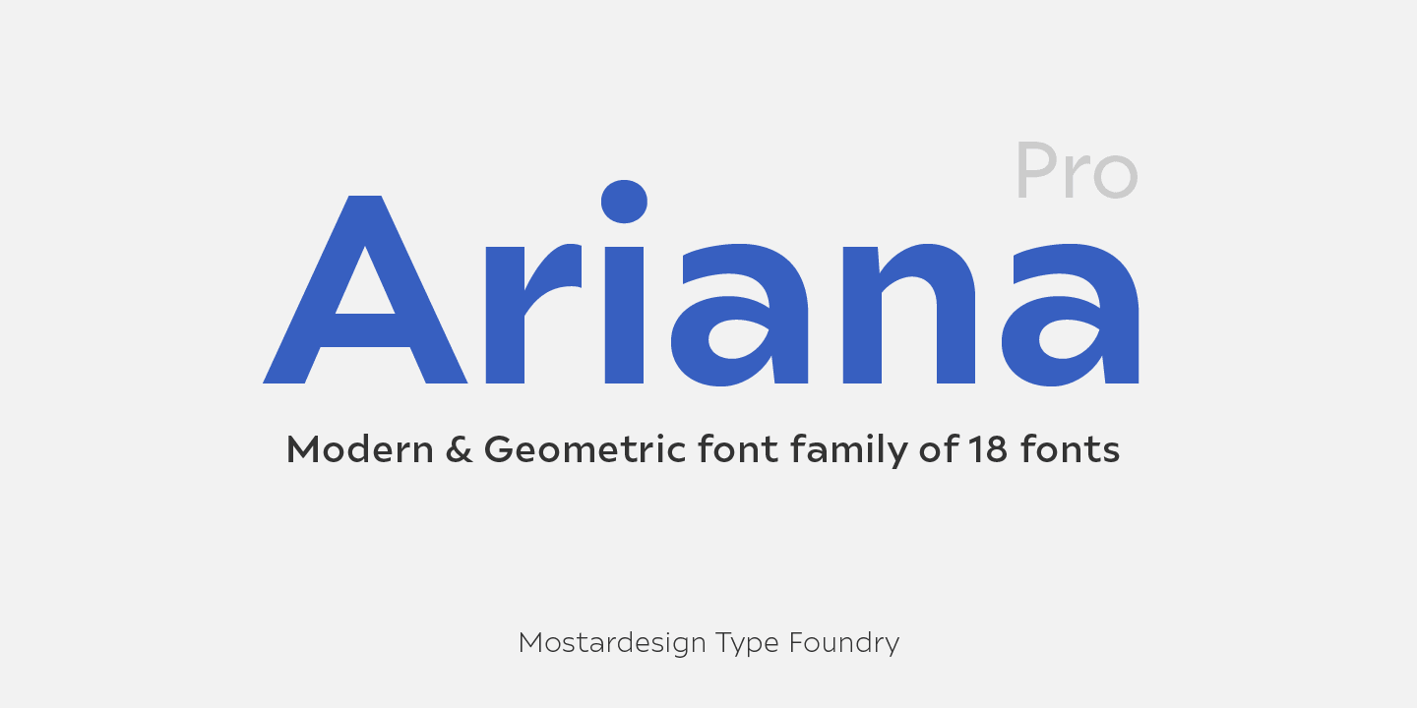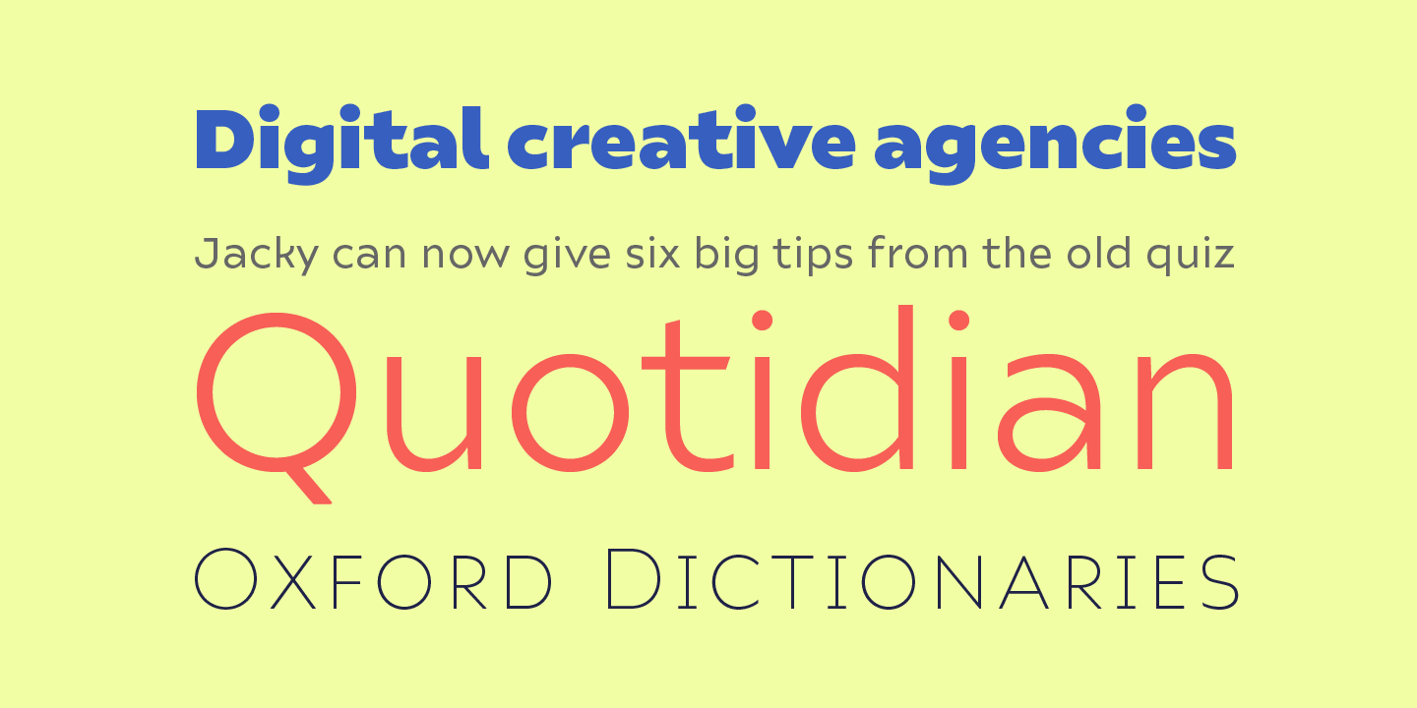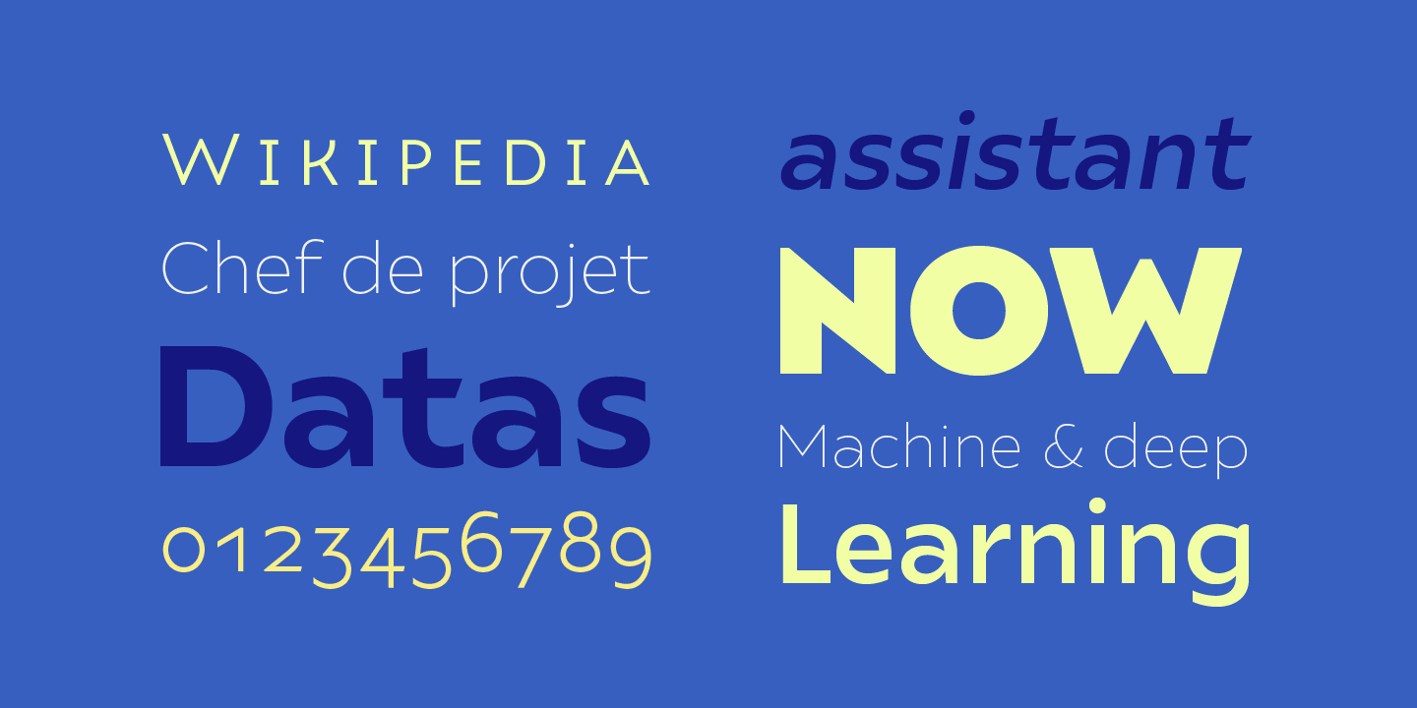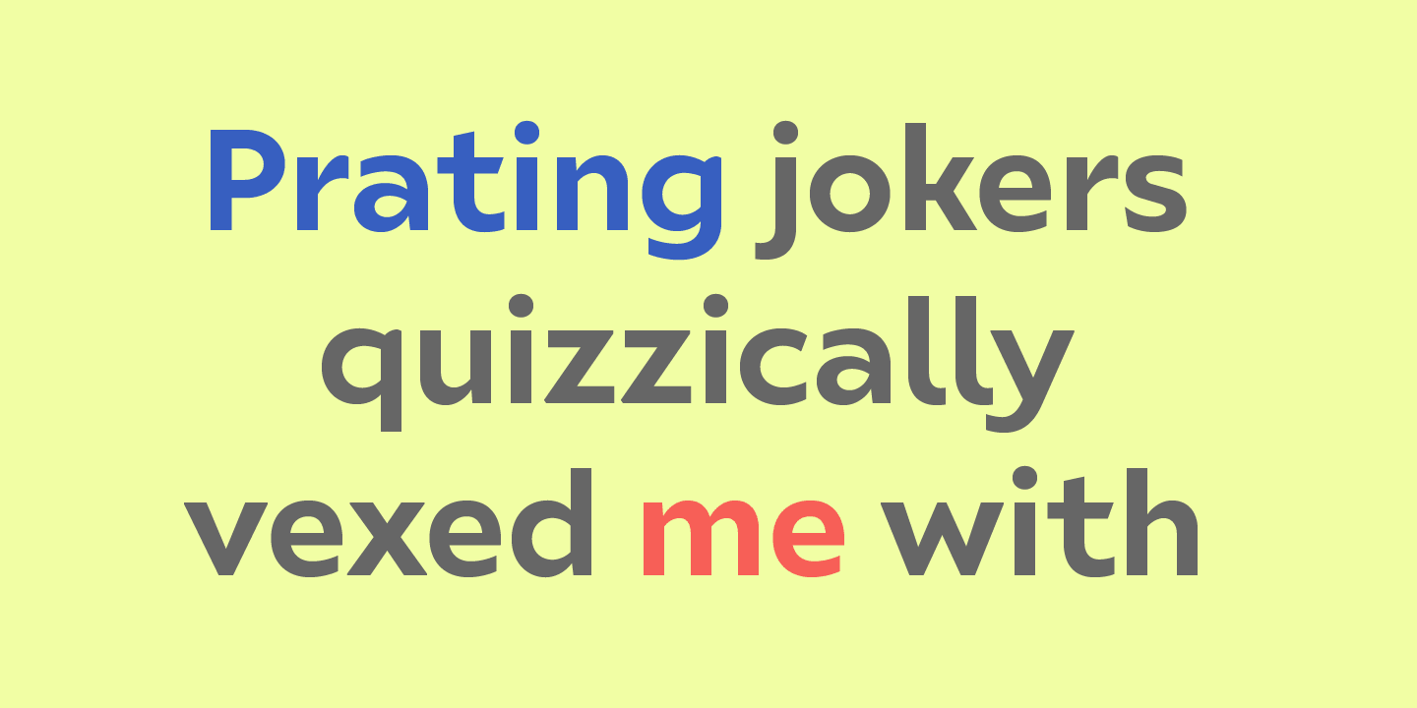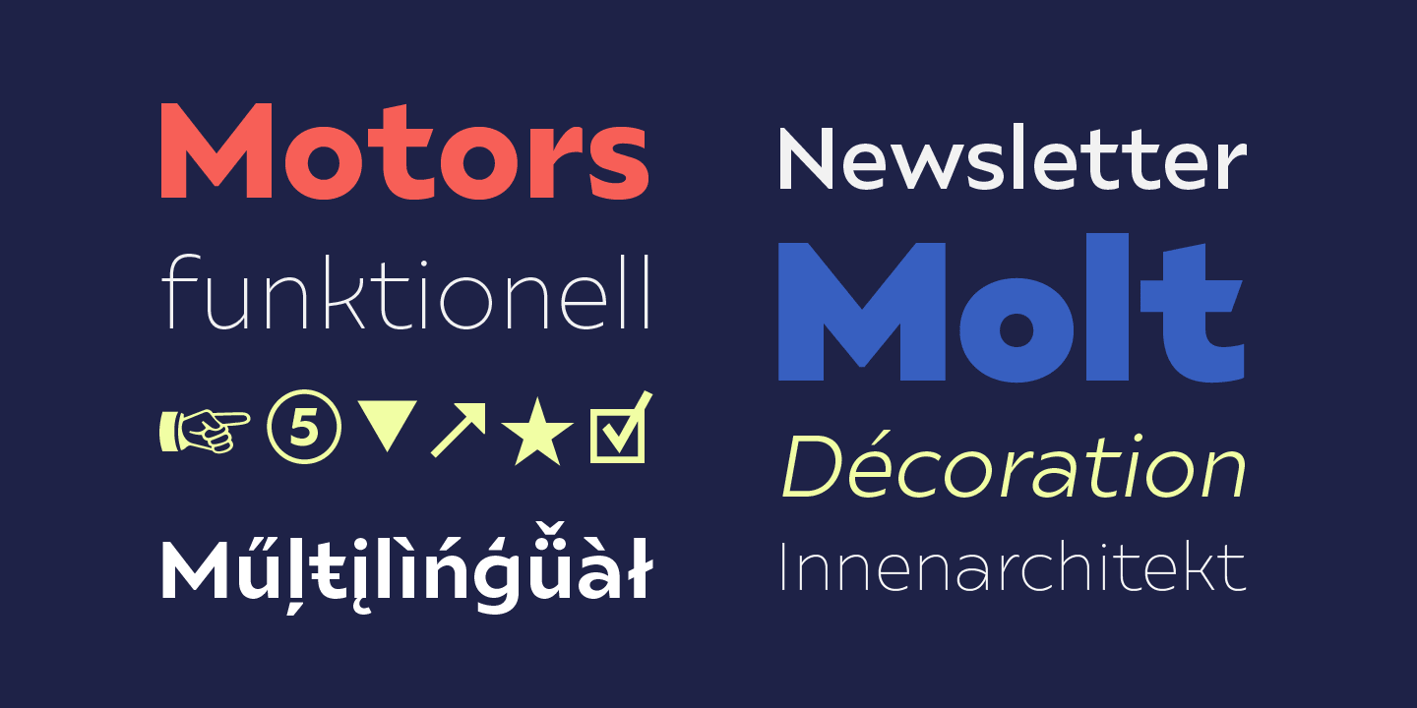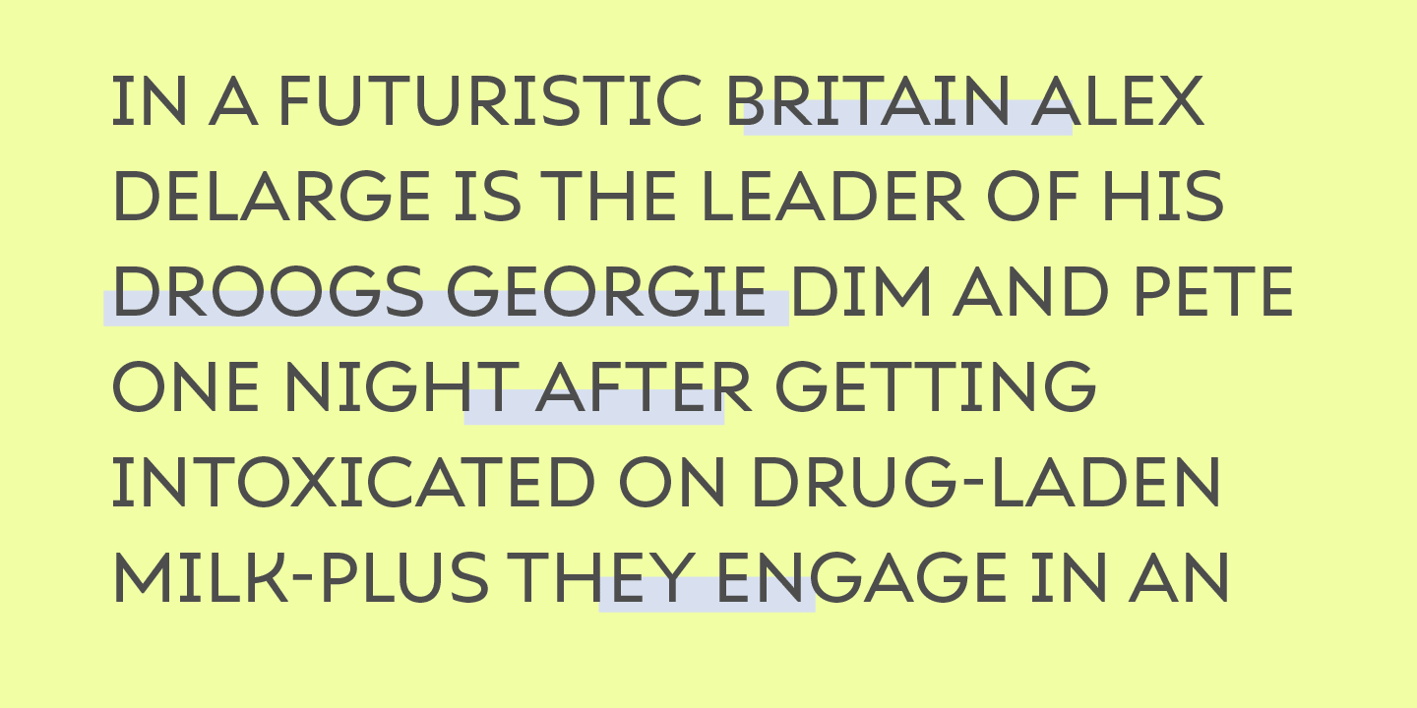
Ariana Pro Font
Ariana Pro Font is perfect for elegant fashion branding, luxury cosmetics packaging, sophisticated magazine layouts, high-end jewelry marketing, premium beauty salons, upscale boutique signage, refined wedding stationery, glamorous event invitations, elegant lifestyle blogs, sophisticated editorial design, luxury spa materials, and polished projects that require graceful, professional typography with refined femininity and contemporary elegance.
What makes Ariana Pro Font so exciting is its sophisticated grace and refined elegance that embodies the perfect balance of contemporary femininity and professional polish. This typeface features beautifully proportioned letterforms with subtle curves and elegant details that create an immediate sense of sophistication, quality, and refined taste. The font's graceful character and professional appeal make it perfect for luxury brands and upscale projects that want to communicate elegance, sophistication, and the kind of refined femininity that resonates with discerning audiences seeking quality and style.
Ariana Pro Font typically comes in multiple weights and styles including Thin, Light, Regular, Medium, Semi-Bold, Bold, and Black variations, along with their corresponding Italic counterparts. Professional versions often include stylistic alternates, elegant ligatures, small caps, and comprehensive international character support that provide complete typographic solutions for luxury brands and sophisticated design applications.
Whether you're designing luxury fashion materials, high-end beauty products, or sophisticated editorial content, Ariana Pro Font delivers exceptional elegance and refined femininity that connects with audiences who appreciate quality design and sophisticated aesthetics. Its graceful proportions work beautifully across both digital and print luxury applications, maintaining its elegant personality while ensuring excellent readability in premium contexts.
The exquisitely crafted letterforms of Ariana Pro Font showcase the finest balance of contemporary design and feminine elegance. Each character has been meticulously refined to ensure optimal performance in luxury applications while delivering the sophisticated aesthetic that premium brands require, making it particularly valuable for high-end communications where typography must convey both quality and refined taste.